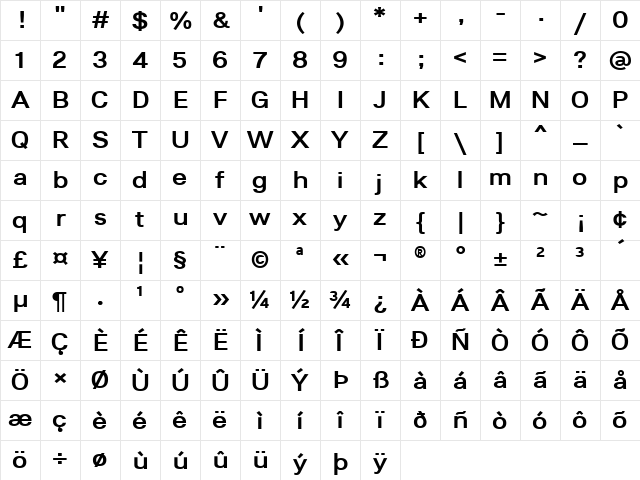
Lunchtype24 Expanded Medium
Foundry: Steppot
Designer: Lunchtype.com
Design Context for Lunchtype24
Lunchtype24 is a composed and adaptable typeface that performs quietly and consistently across a wide range of design contexts.